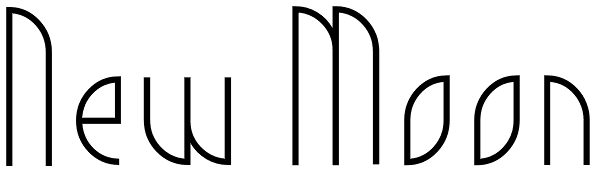
New Moon
This font has been derived from different transformations of the moon transcending into different moods which effect the world. A full moon can cause human beings to be aggressive. While a new moon is a good time for new beginnings. This font can...
New Moon
New Moon Light
New Moon Bold